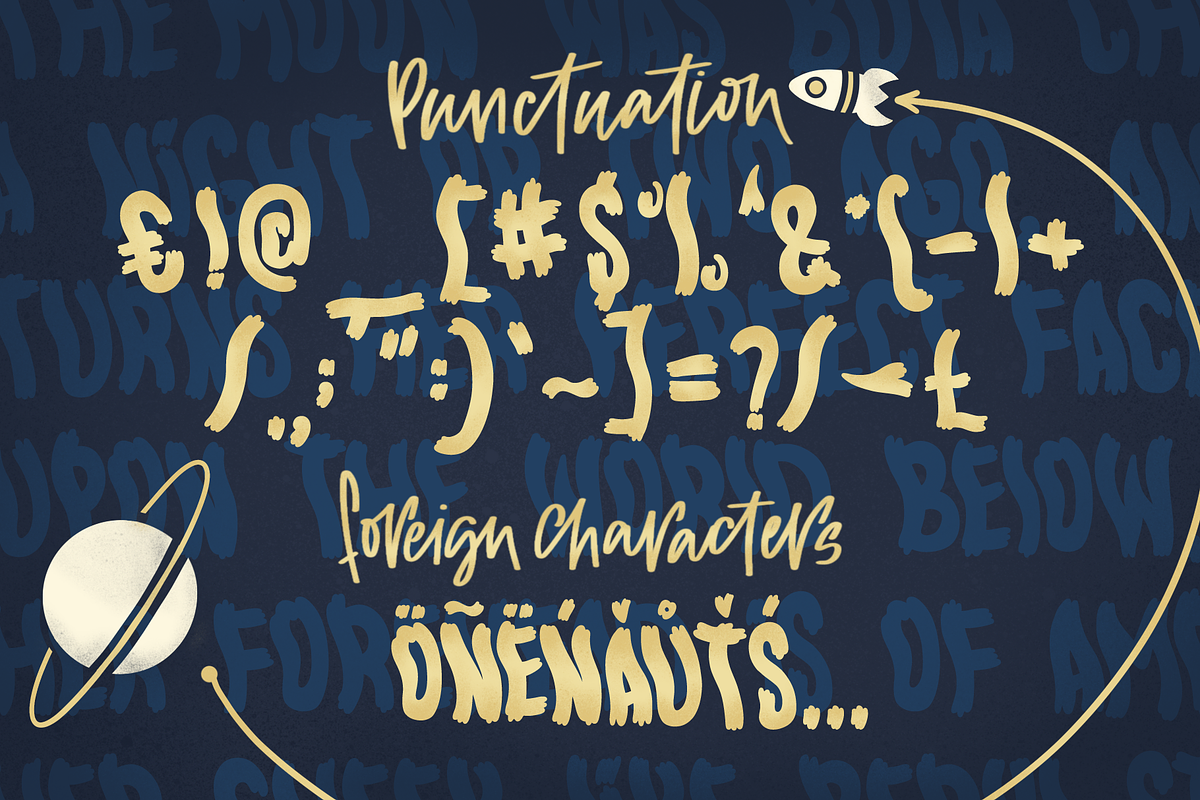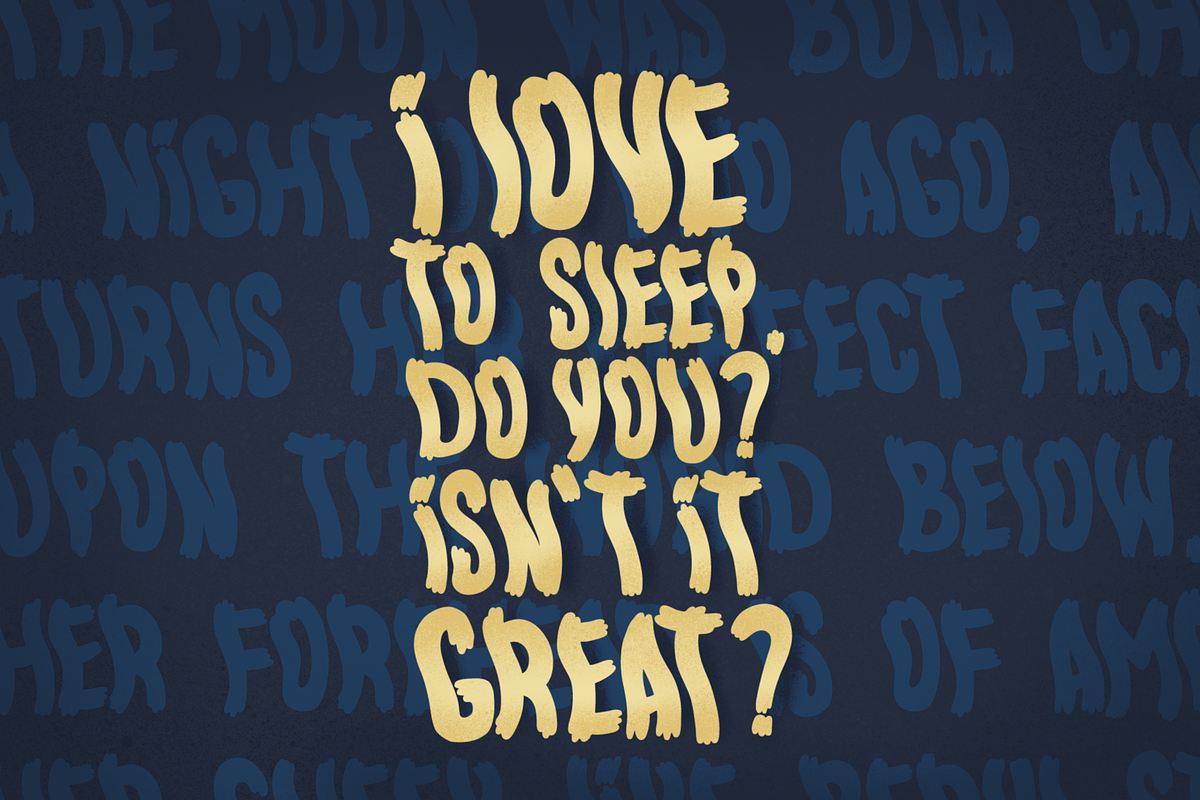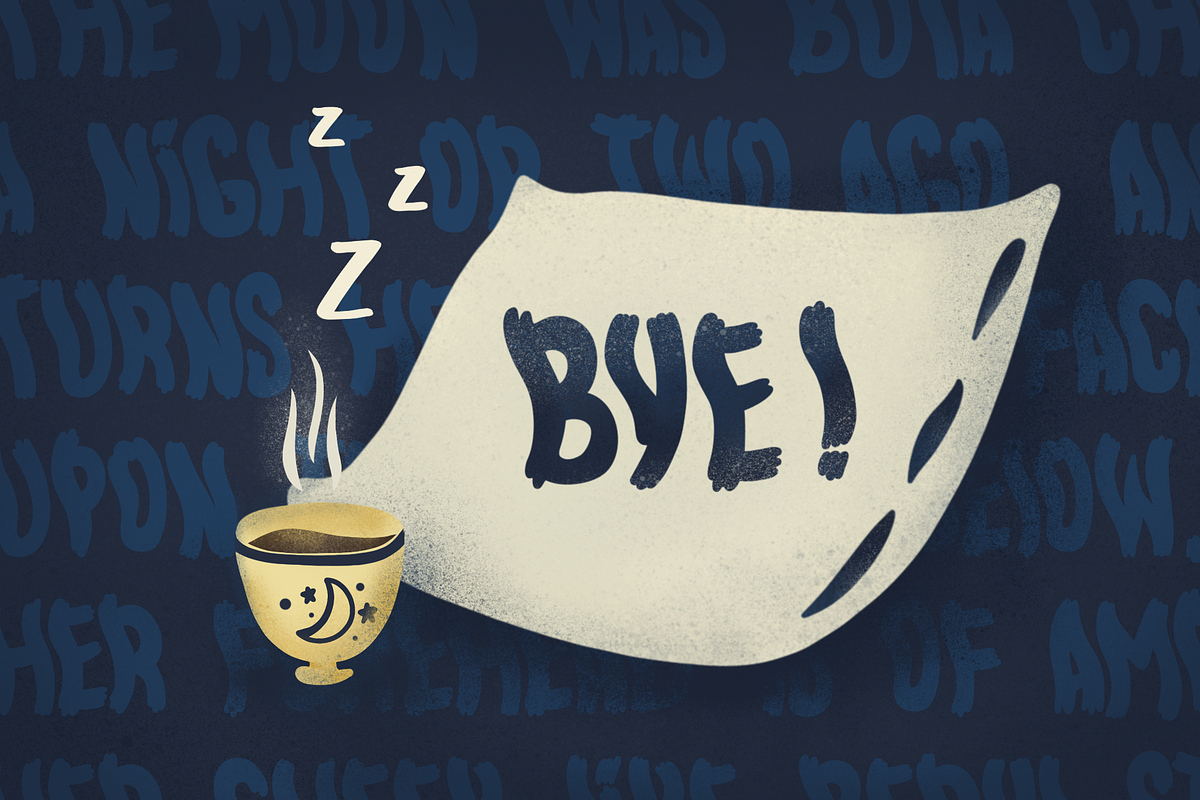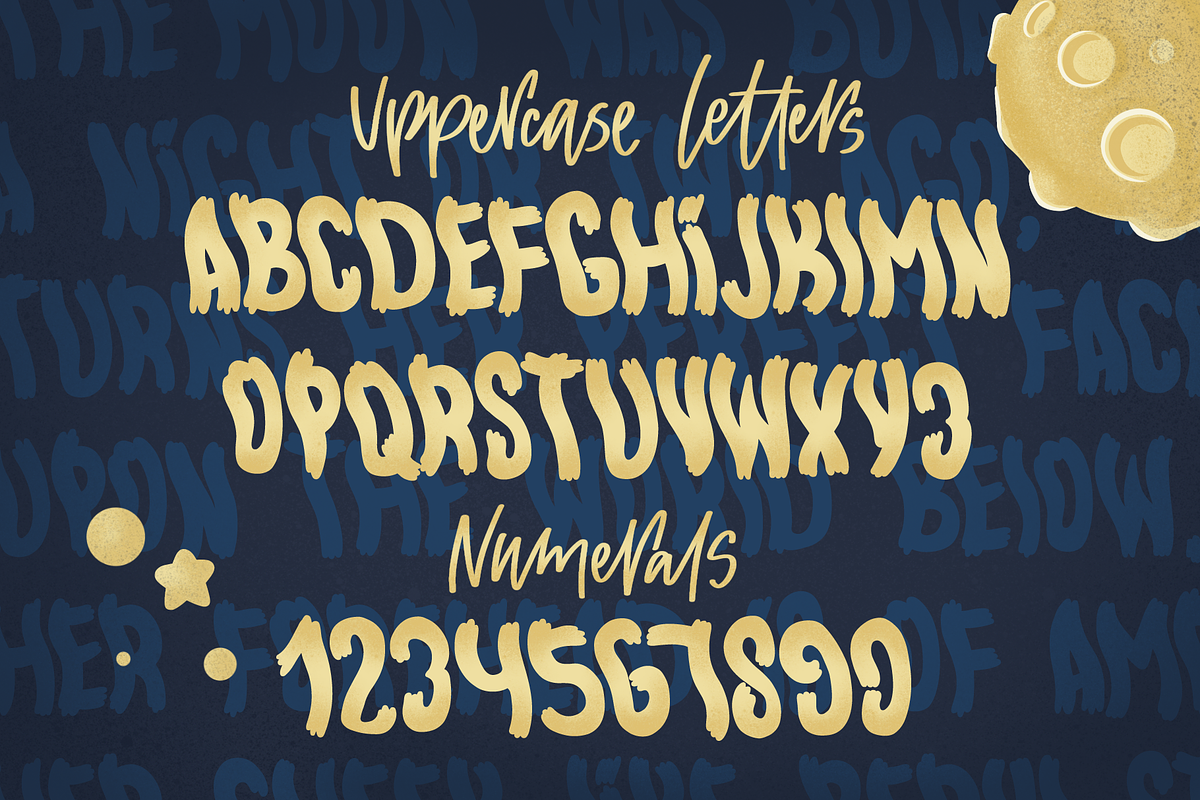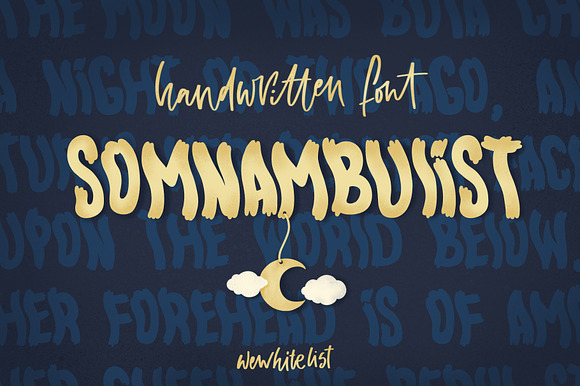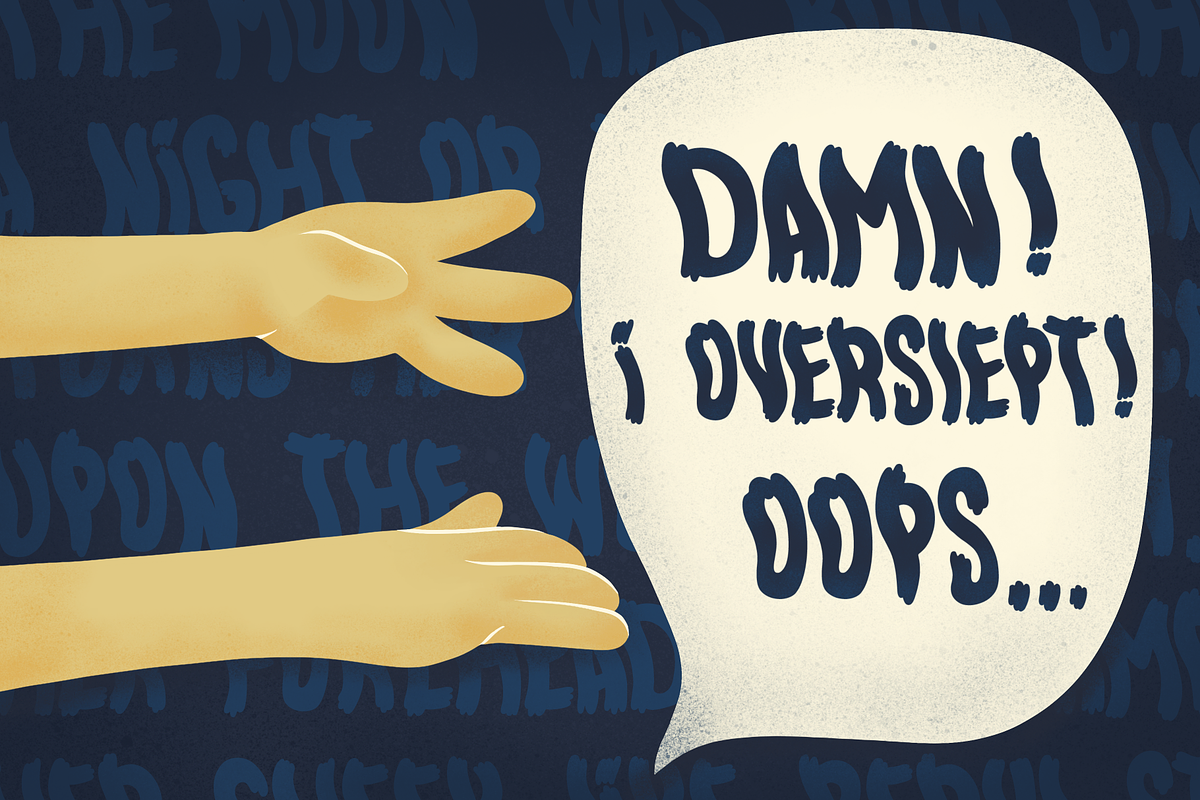
Handwritten Somnambulist font.
On this vigorous day, I want to introduce you my new Handwritten Somnambulist font.
Why Handwritten Somnambulist font. is worth a look
Handwritten Somnambulist font. by Wewhitelist fits naturally into Branding, posters, packaging, typography.